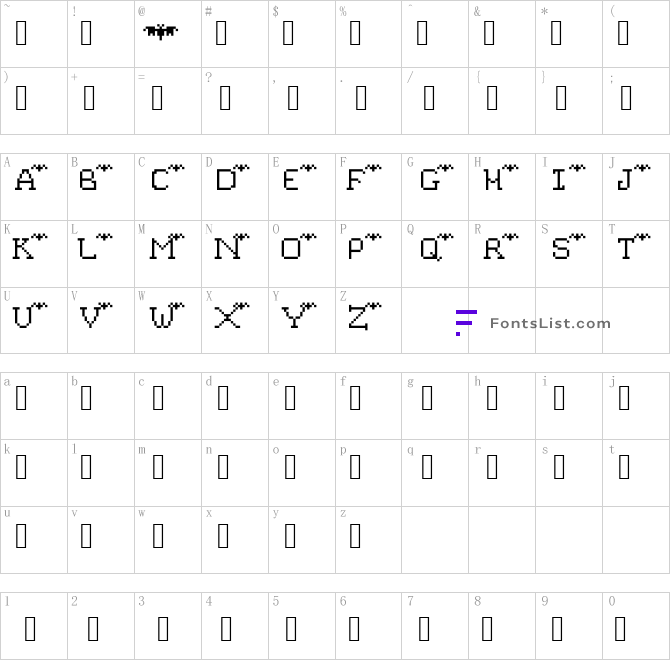
BattysBats.ttf is a very beautiful artistic font, BattysBats.ttf is widely used in the design and printing of various books and pictures,BattysBats.ttf has a strong visual impact,BattysBats.ttf is a commonly used font in newspapers, magazines and books, and is used in posters, e-commerce Poster design, store design, logo design, font design and other fields.BattysBats.